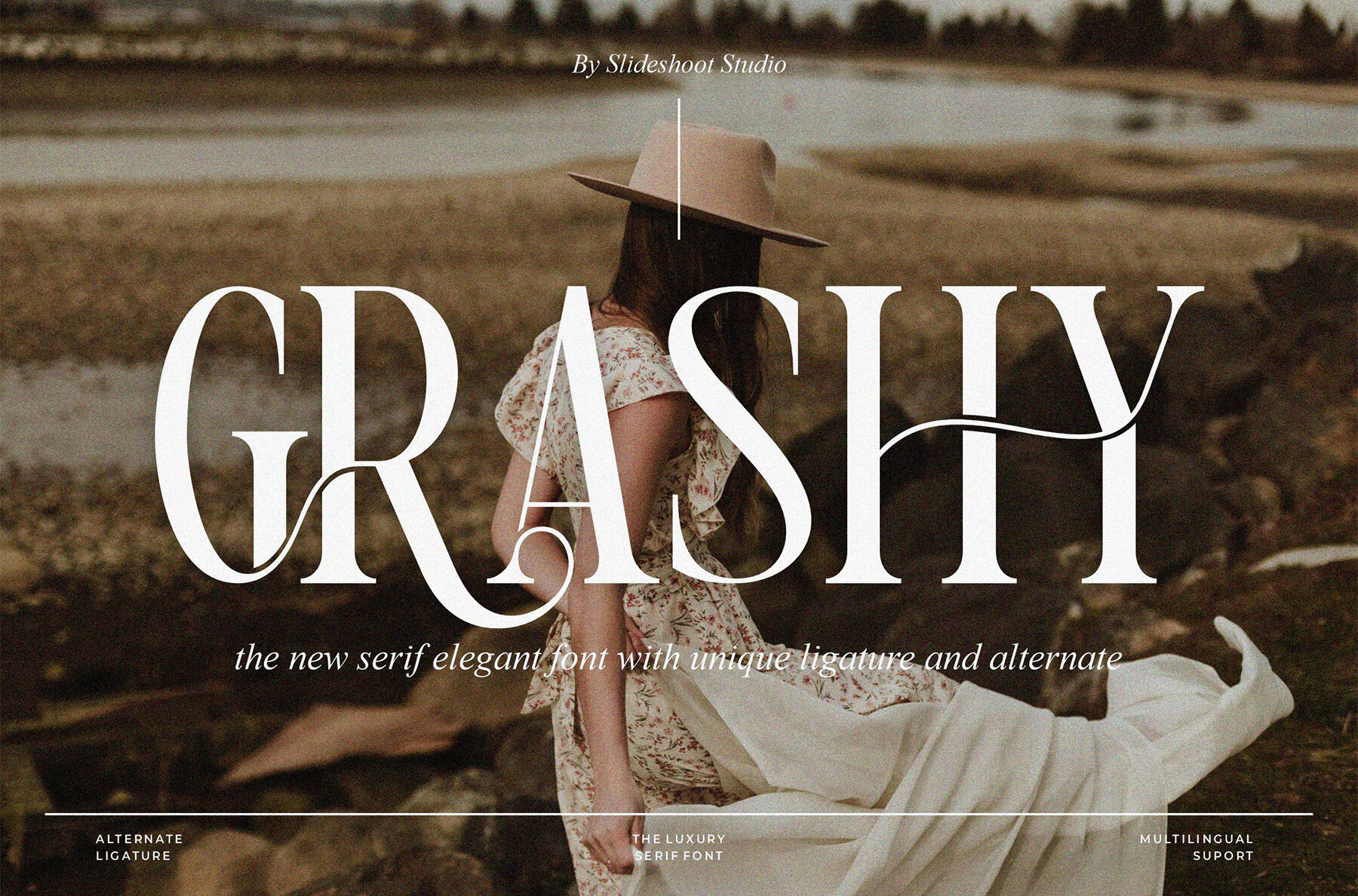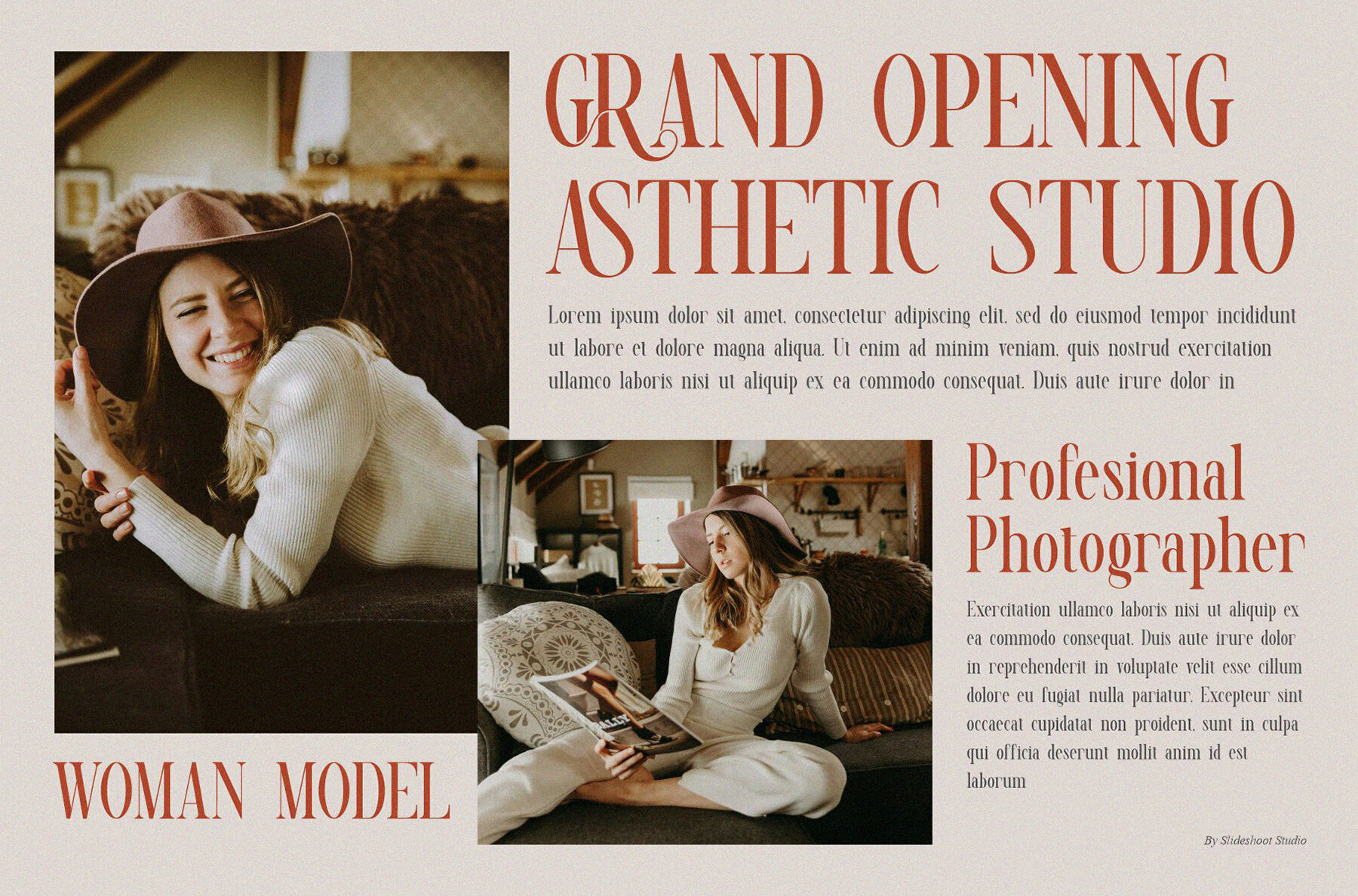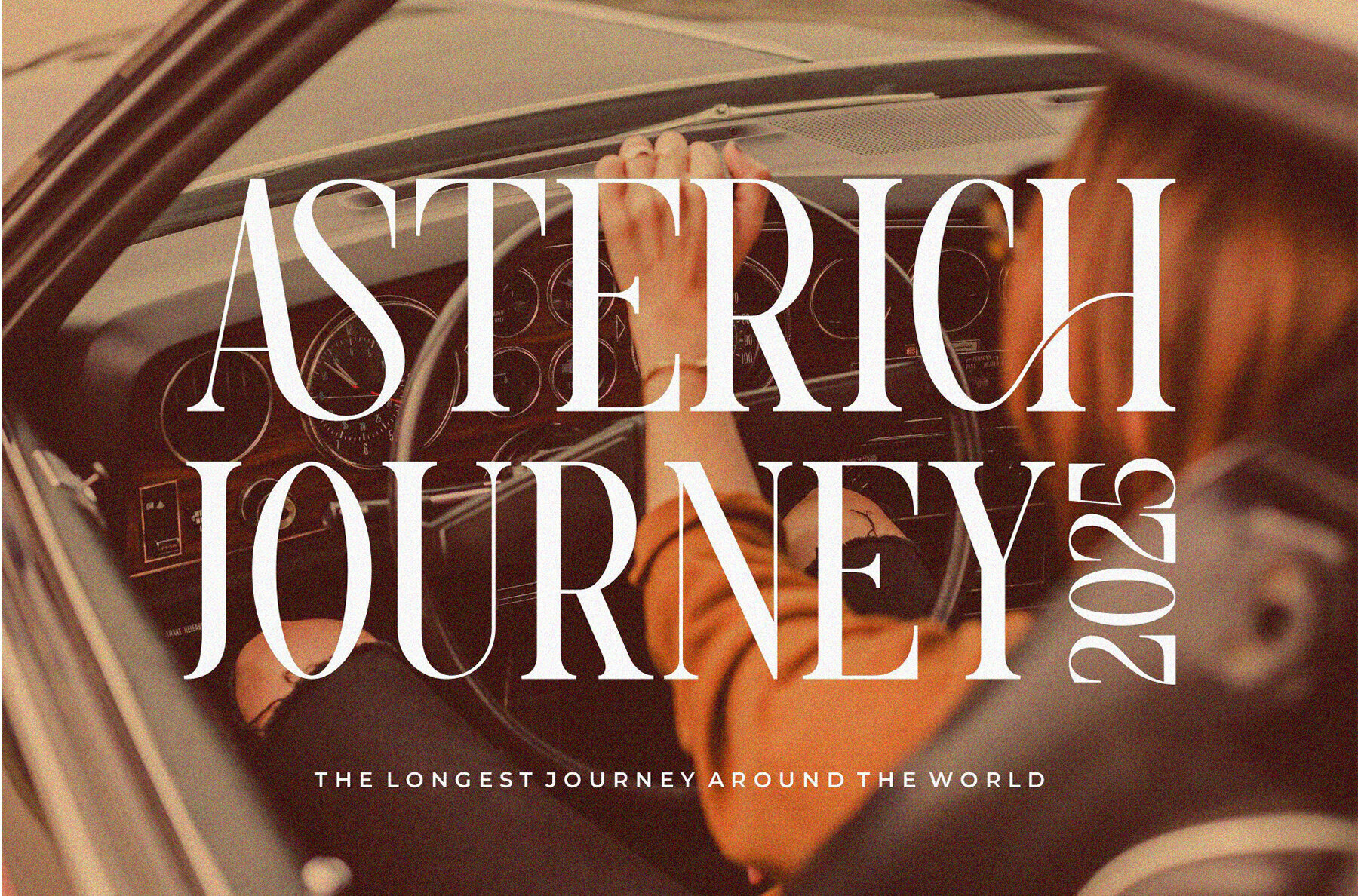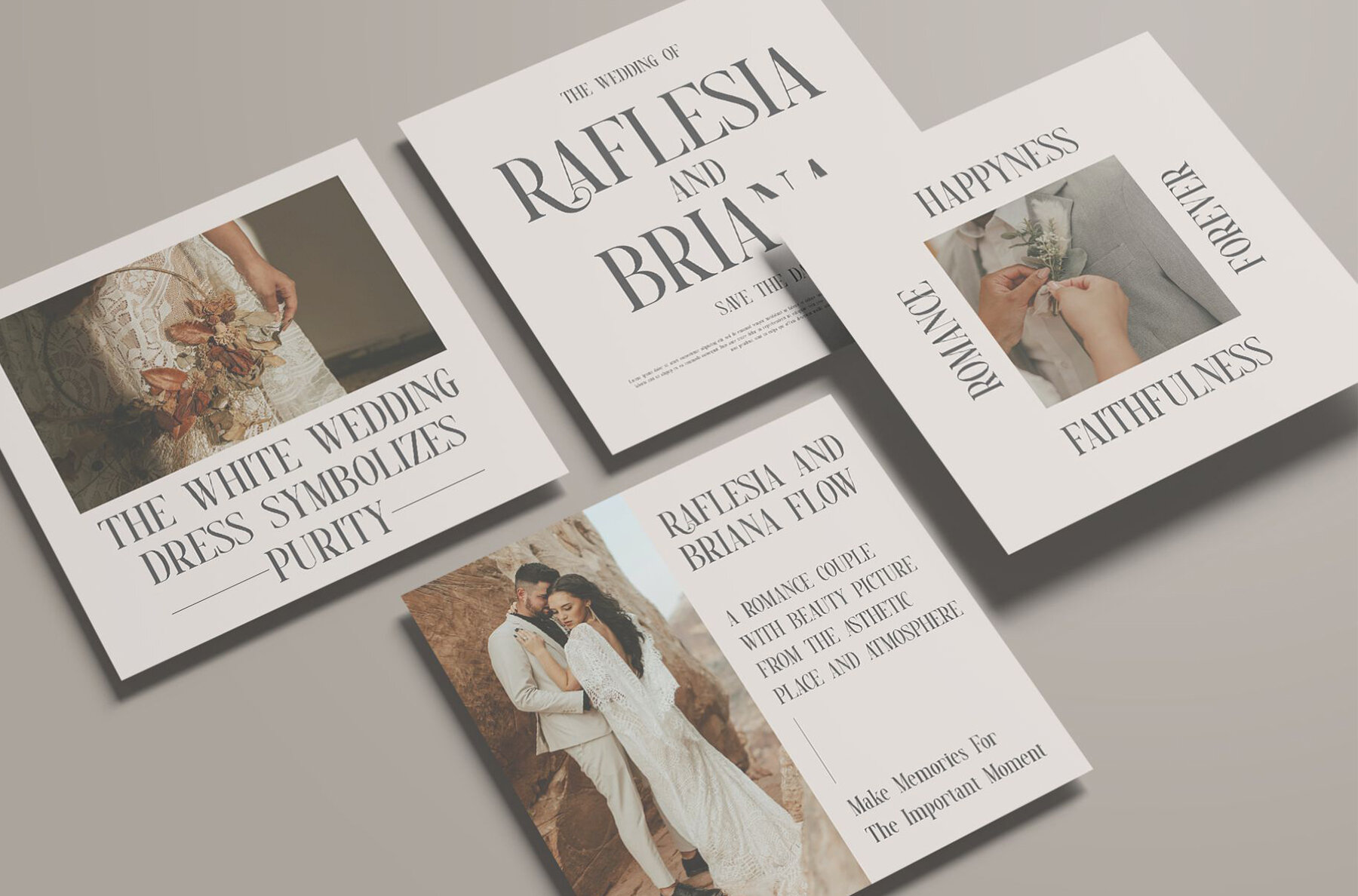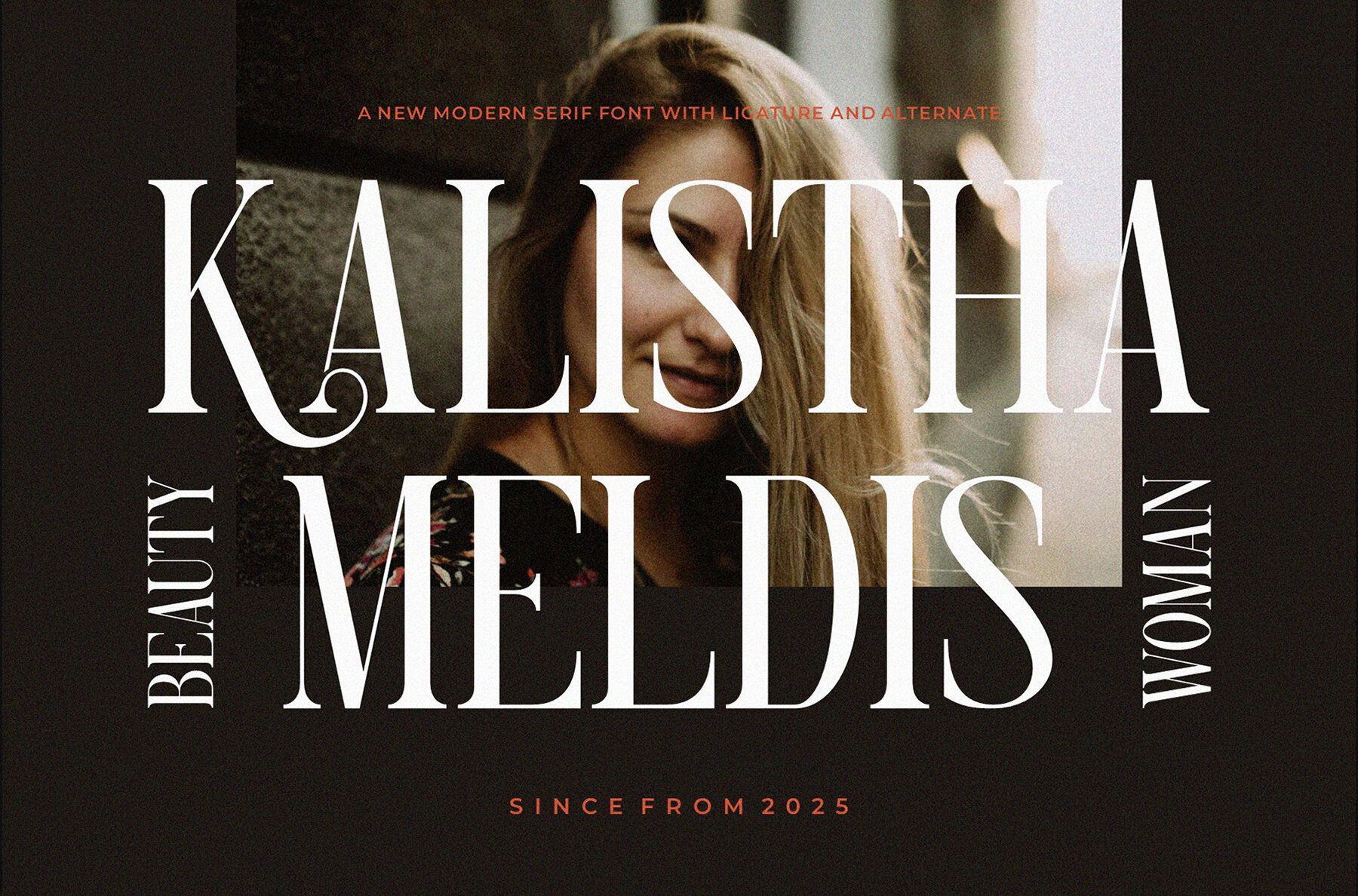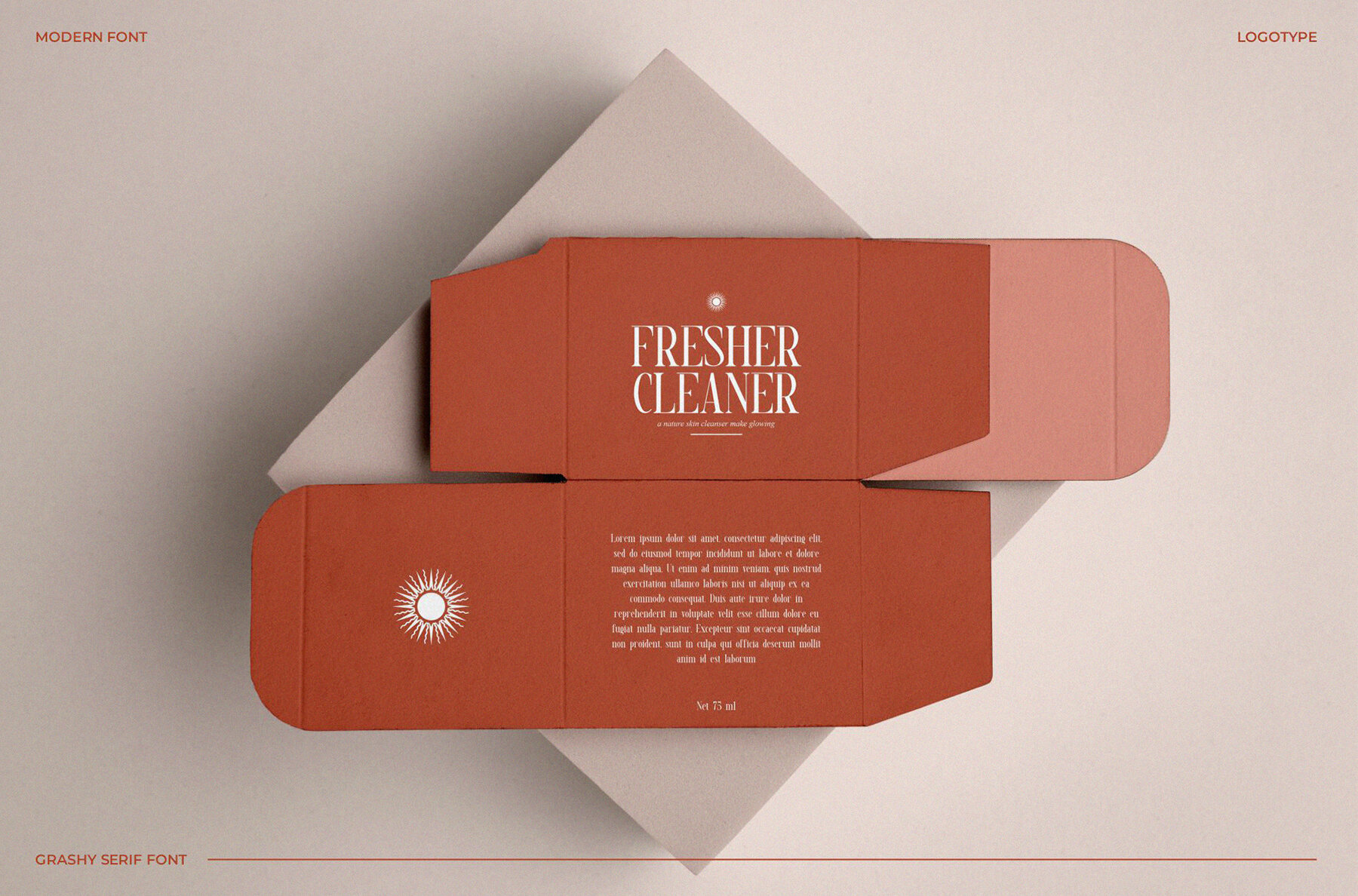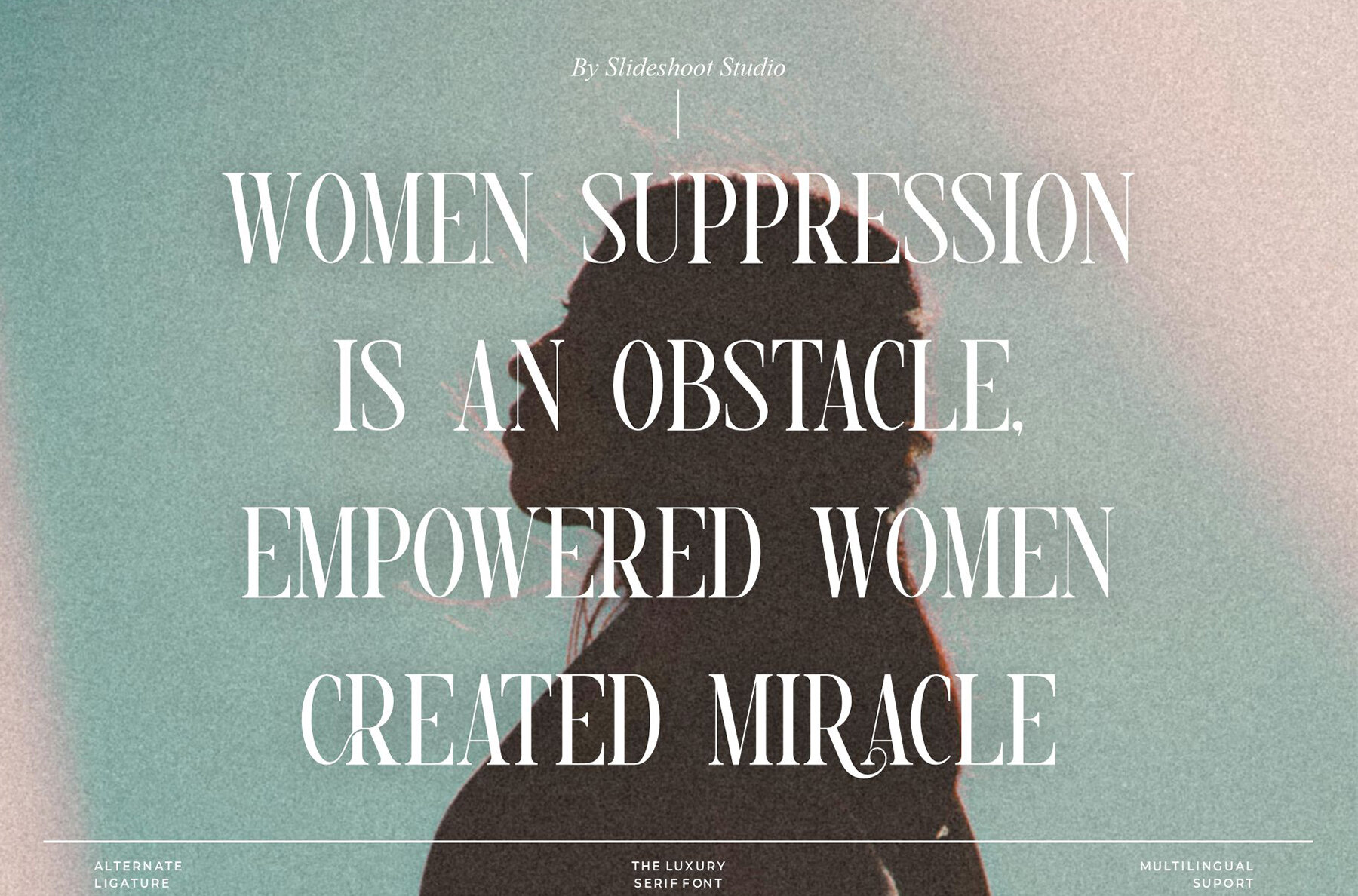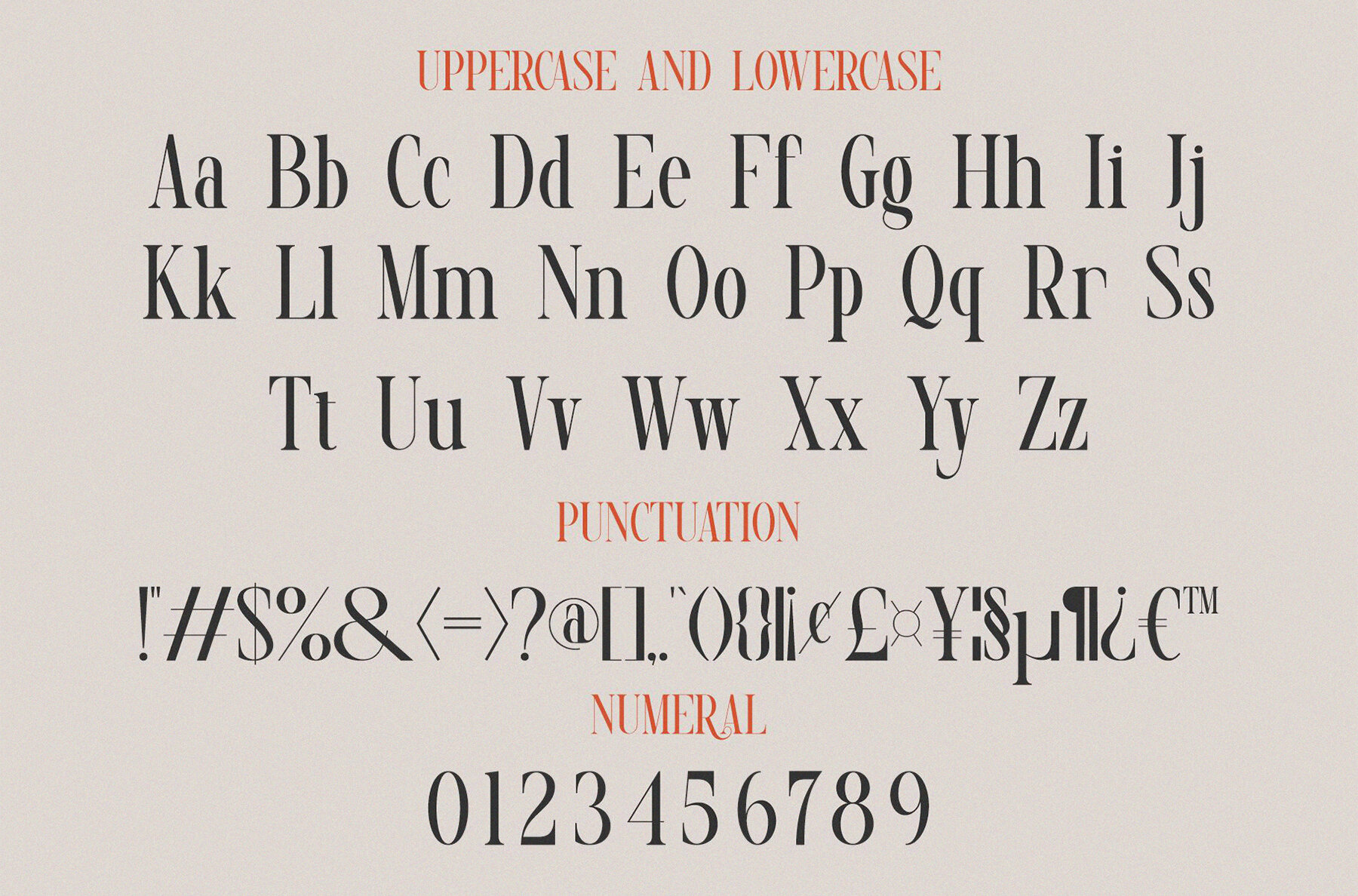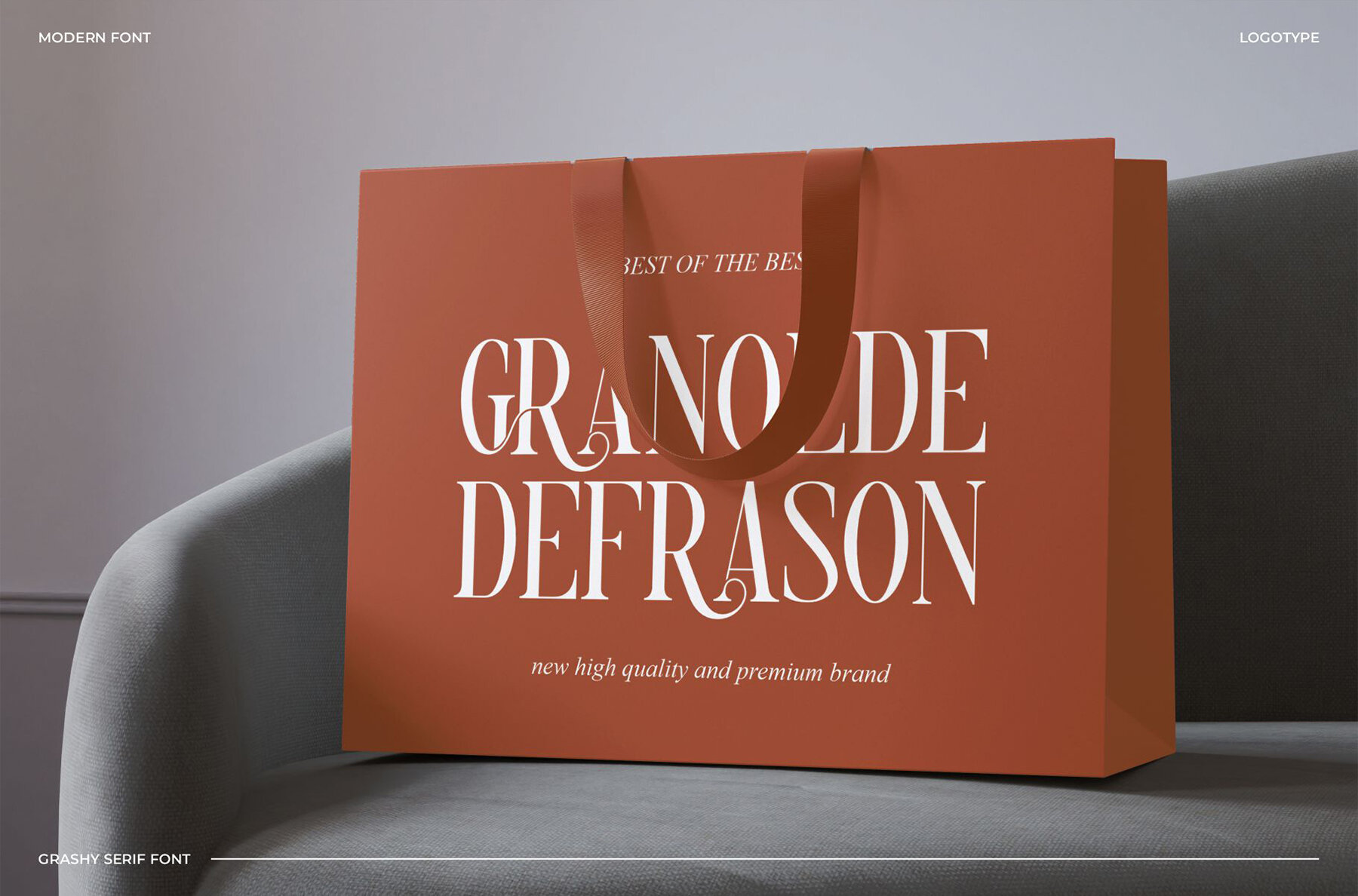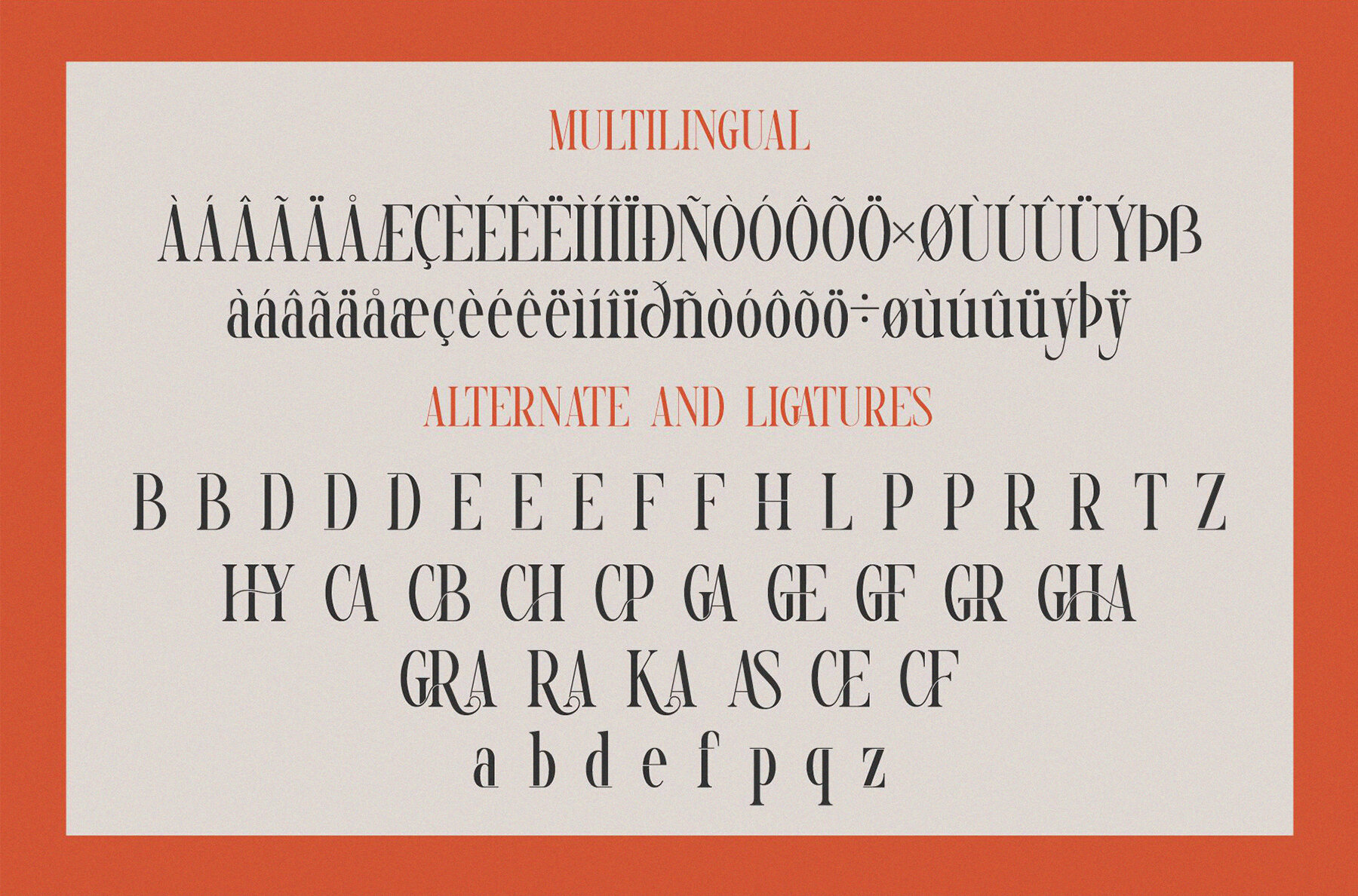
Grashy Font
Grashy Regular
Grashy Serif is a sophisticated typeface ideal for branding and logo creation. This modern and elegant serif font boasts beautiful character traits, making it an excellent choice for a wide range of projects. Whether you're designing invitation cards, cool logos, movie titles, business cards, book titles, or brand names, Grashy Serif delivers a sense of refinement and contemporary style. Its smooth design and stylish alterations ensure versatility across various design applications.
Key features of Grashy Serif include ligatures, a full set of uppercase and lowercase letters, and comprehensive numbering and punctuation options. It offers seamless functionality on both PC and Mac, with straightforward installation. The font is compatible with popular design software such as Adobe Illustrator, Photoshop, InDesign, and even works in Microsoft Word, providing designers with the flexibility needed to enhance their projects.